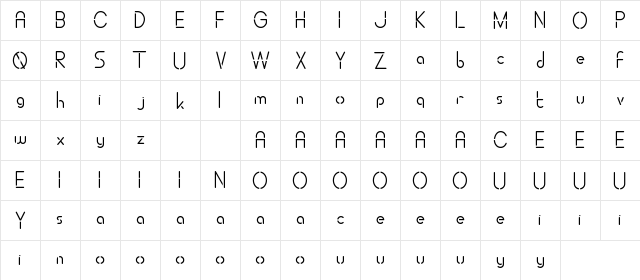
ALDORA DEMO Cutting Regular
| Foundry | Edric Studio |
| Designer | M Nouval |
Design Context for ALDORA DEMO Cutting Typeface
ALDORA DEMO Cutting offers clean, dependable letterforms without strong stylistic allegiance, making it a practical choice for designers who need flexibility.